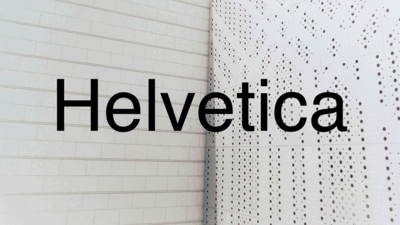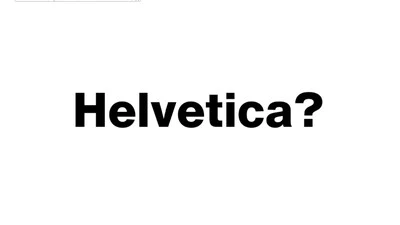
Helvetica Now
Helvetica Now Variable, new from the Monotype Studio, offers more than a million new Helvetica styles in one state-of-the-art font file, allowing you to create infinite shades of expression, incredible typographic animations, and ultra-refined typography.
More of everything, for everyone. Introducing Helvetica Now Variable.
Charles Nix Tells the Story of Helvetica Now
Helvetica® is perhaps the best-known typeface of all time, inspiring designers across multiple generations and around the world. Recently, Monotype’s Studio team released Helvetica® Now, a reimagination available in three optical sizes - Micro, Text, and Display. Every character has been redrawn and refit; with a variety of useful alternatives added.
Designers from several leading brands share their own experiences with Helvetica®, and discuss why Helvetica® Now is suited for the needs of a modern world.
What do designers think of Helvetica Now?
You can love it or hate it, use it for nearly anything or refuse to use it at all. But however you feel about Helvetica, no one can deny its place in society.
Right place, right time: The story of Helvetica.
Just how neutral is Helvetica?
In many ways the idea that Helvetica is a 'neutral' typeface has become a self-fulfilling prophecy. That's not to say it isn't, but the neutrality narrative is only half the story.